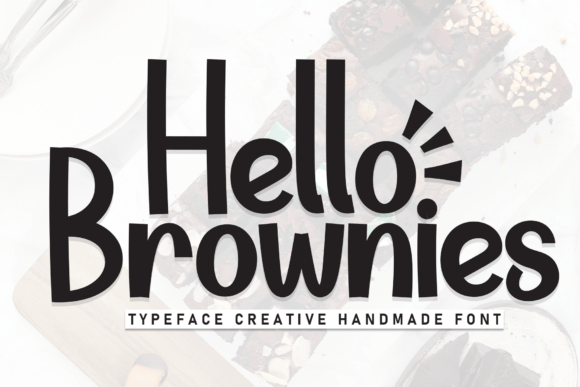
Designing with Love: The Magic of Hello Brownies Font
Have you ever sat down with a blank sheet of paper and a pen, letting your creativity flow freely as you craft the perfect invitation or greeting card? It’s a moment of pure joy, where the lines between art and design blur, and the world feels like a canvas waiting to be filled with love and warmth. For designers seeking to capture that essence in their work, we’re excited to introduce Hello Brownies Font – a charming, hand-scripted typeface that’s sure to bring a smile to anyone’s face.
This delightful font is perfect for adding a sprinkle of charm to your designs, making it the ideal choice for crafting personalized wedding invites, engaging greeting cards, or any project that needs a dash of whimsy. With Hello Brownies Font, you can infuse your work with a sense of warmth and friendliness that’s sure to leave a lasting impression.
- Unique Characteristics: The font features a playful, handwritten style with a mix of uppercase and lowercase letters, making it perfect for creative and casual projects.
Hello Brownies Font Review
I recently had the chance to work with the Hello Brownies Font, and I must say it’s a lovely addition to any design project. ✨ The font is extremely versatile, with a modern, playful feel that works well for a variety of applications, from logos to signage to digital interfaces.
Here are some specific things that work well with Hello Brownies Font:
- ✨ Its clean, open lines make it perfect for use in text-heavy designs.
- ✨ The font is highly legible, even at smaller sizes, making it great for use on business cards, menus, and other printed materials.
- ✨ The font’s friendly, approachable feel makes it a great choice for branding and marketing materials.
However, I do have a few concerns about the font:
- ⚠️ The font’s weight range is somewhat limited, which can make it difficult to create a cohesive look when combining different weights and styles.
- ⚠️ The font’s rounded edges can make it difficult to read at very small sizes.
Overall, I think the Hello Brownies Font is a solid choice for designers looking for a modern, playful font. While it may have some limitations, its versatility and legibility make it a great addition to any design project.
For best results, pair “Hello Brownies Font” with a bold, contrasting color to make your text stand out.
Experiment with different font sizes and styles to create a visually appealing design.
“Hello Brownies Font” is ideal for use in:
- Childhood-themed designs
Alternatives to “Hello Brownies Font” for Designers
Pacifico Font is a beautiful, elegant script font that is perfect for designing invitations, wedding cards, and other formal events. It has a unique, handwritten feel that can add a touch of sophistication to any design. Compared to Hello Brownies Font, Pacifico Font has a more refined and luxurious look, making it ideal for high-end designs.
Great Vibes Font is a modern, cursive font that is perfect for designing logos, social media graphics, and other promotional materials. It has a fun, energetic feel that can add a touch of excitement to any design. Compared to Hello Brownies Font, Great Vibes Font is more playful and youthful, making it ideal for designs that require a fun and lively vibe.
Q: What is the recommended font size for the Hello Brownies Font?
The recommended font size for the Hello Brownies Font is between 12pt and 24pt. This range provides optimal readability and visual appeal for most design applications. However, you can experiment with different font sizes to achieve the desired look and feel for your project.